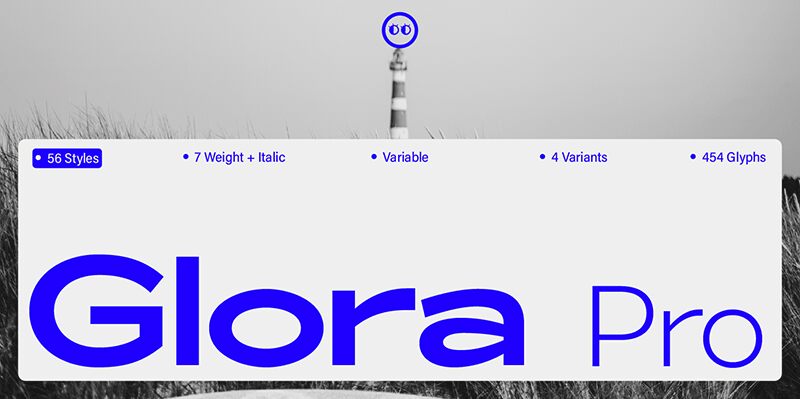
Glora Pro is the next chapter in the Glora story, meticulously crafted to bring an elevated experience to your design projects. Originally released in 2020, Glora has now been fully reimagined, expanding from 6 to 56 styles with precise improvements in kerning, weight stability, and overall refinement.
- 56 Styles: Offering a wide array of design possibilities.
- 4 Variant Varieties: Normal, Semi Expanded, Extra Expanded.
- 7 Weights & Italic: Spanning from Light to Bold, providing flexibility in design.
- Multi-Language Support: Perfect for global projects with extensive language coverage.
Glora Pro is the next chapter in the Glora story, meticulously crafted to bring an elevated experience to your design projects. Originally released in 2020, Glora has now been fully reimagined, expanding from 6 to 56 styles with precise improvements in kerning, weight stability, and overall refinement. With the addition of new variantsNormal, Semi Expanded, and Extra Expanded, each complete with their own italic stylesGlora Pro maintains the signature soft touch and strong letterforms that made the original beloved, while offering greater versatility and depth.
- 56 Styles: Offering a wide array of design possibilities. - 4 Variant Varieties: Normal, Semi Expanded, Extra Expanded. - 7 Weights & Italic: Spanning from Light to Bold, providing flexibility in design. - Extensive Compatibility: Available in OTF, TTF, WOFF, WOFF2, EOT formats, ensuring compatibility with various design platforms and applications. - Multi-Language Support: Perfect for global projects with extensive language coverage. - Enhanced Kerning: Improved spacing for consistent and polished text appearance. - Optical Adjustments: Refined for better legibility and visual balance across all sizes. - Web-Ready: Fully optimized for web use, ensuring crisp rendering on all devices.
Whether youre designing for web, corporate, signage, or editorial, Glora Pro is your go-to modern sans serif. It balances elegance with impact, ensuring your message is delivered with clarity and sophistication. Redesigned with attention to every detail but preserving the familiar essence of Glora, this typeface invites you to create with confidence and style. And remember, as you design with Glora Pro, "don't forget to be happy while you're alive."